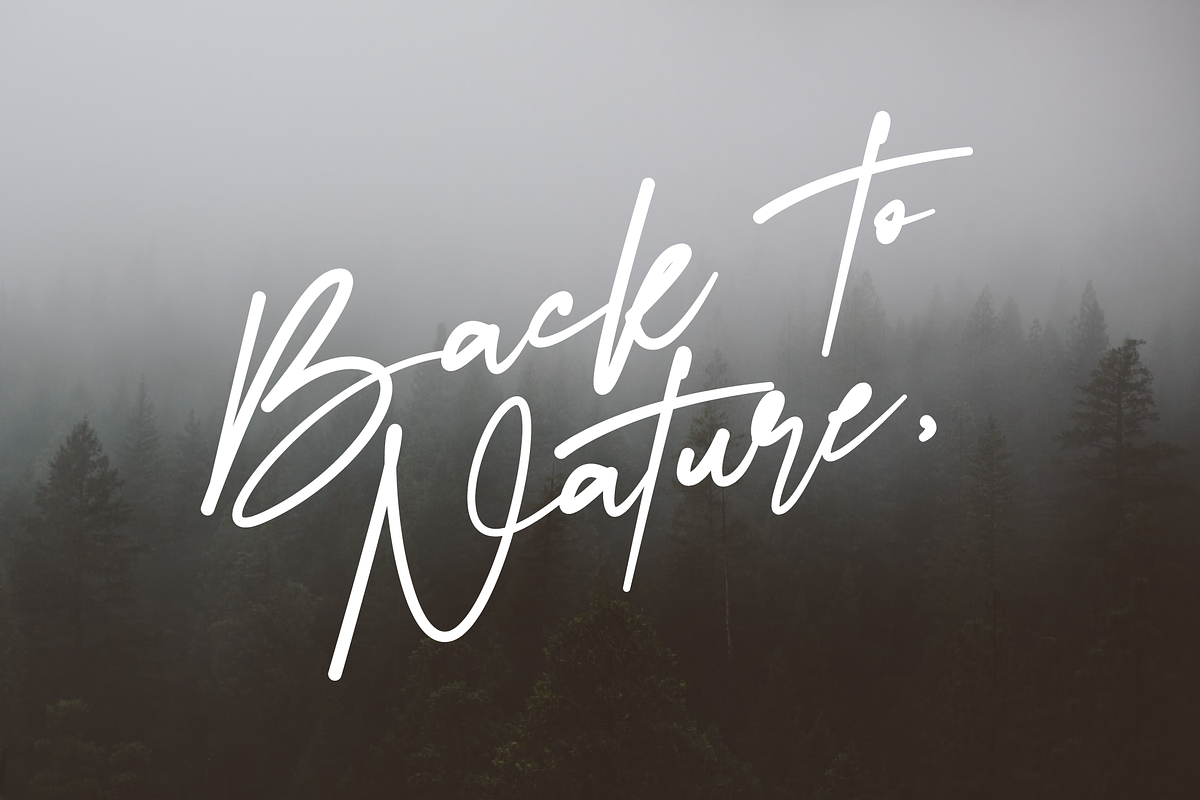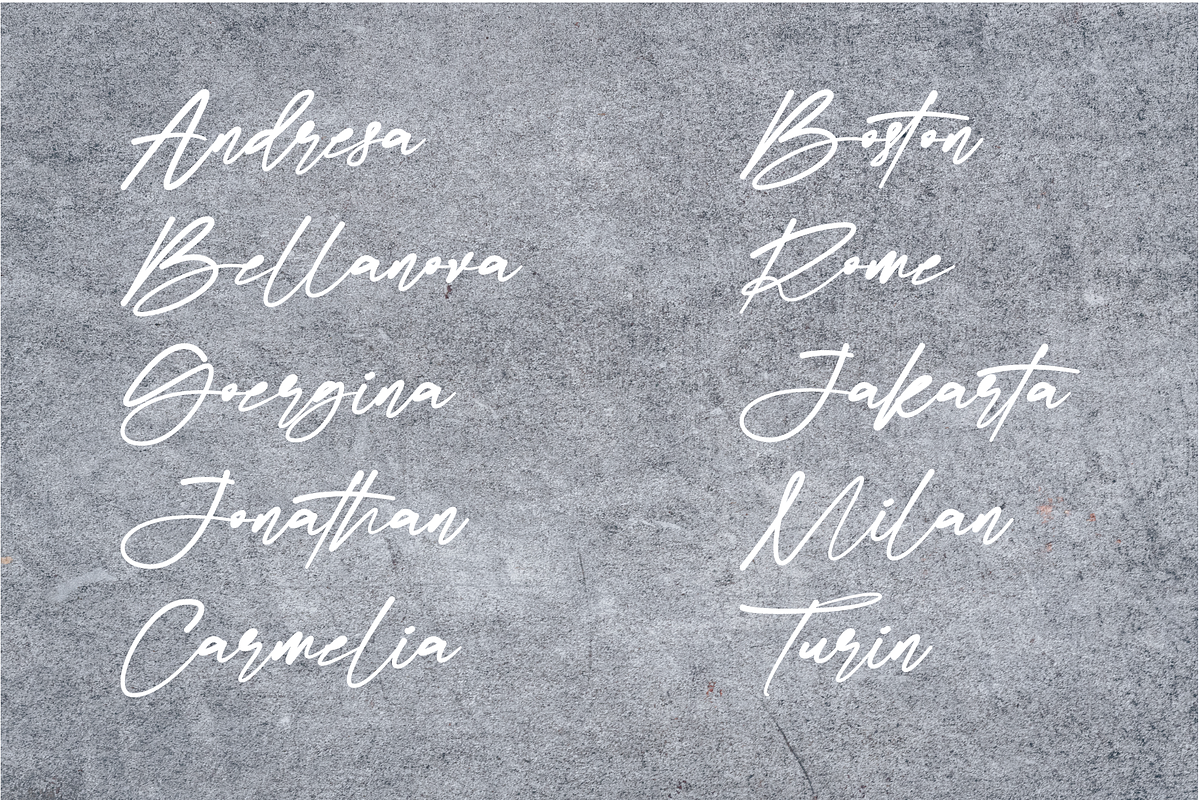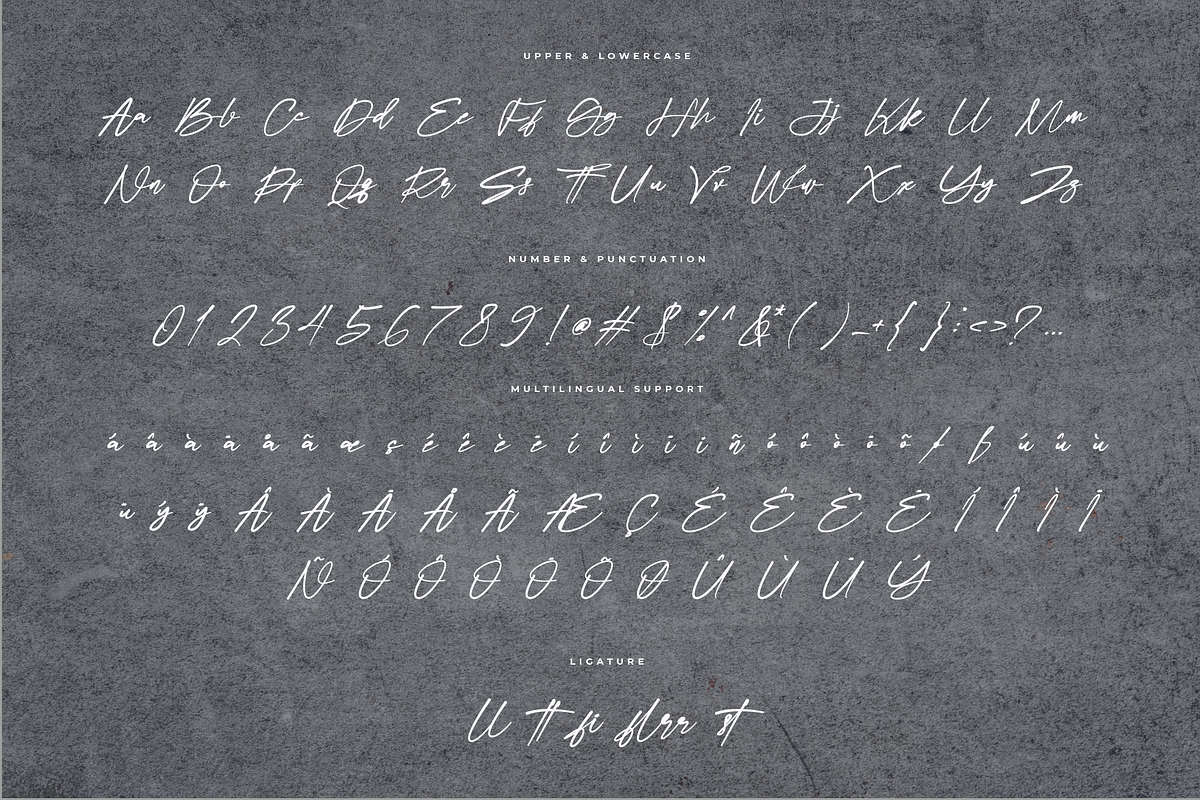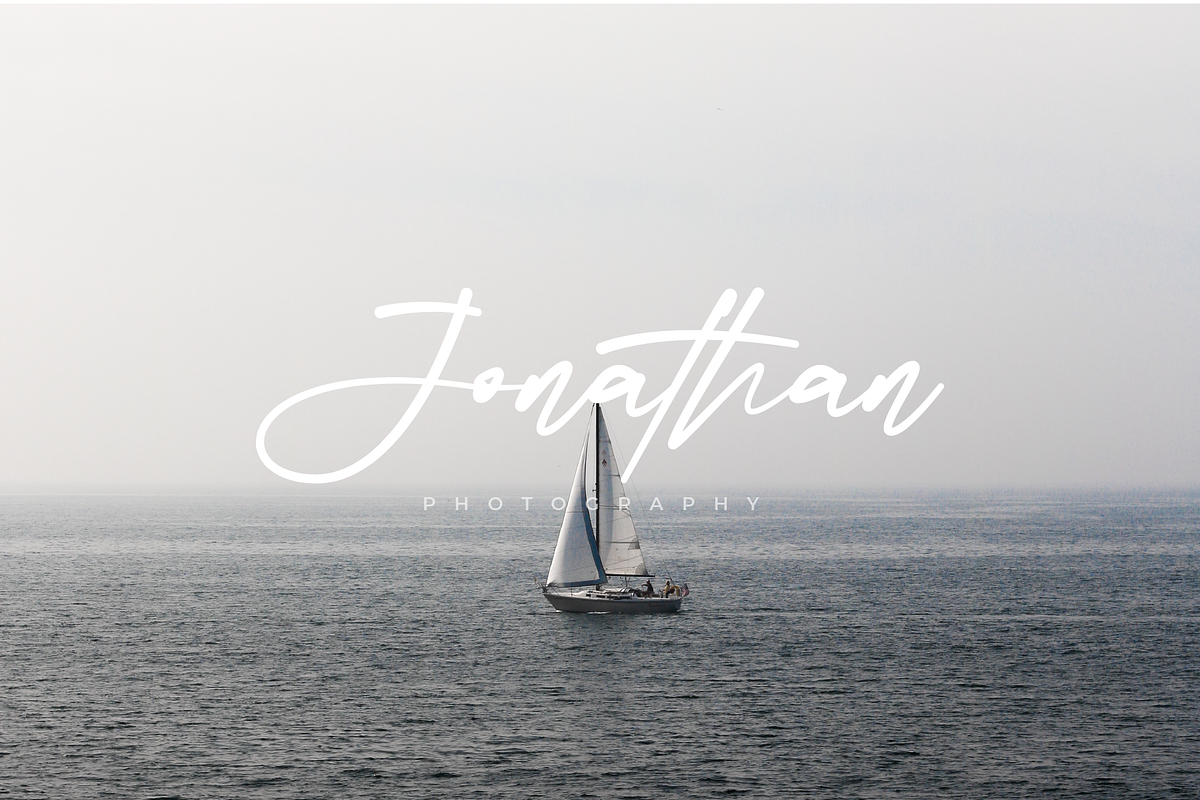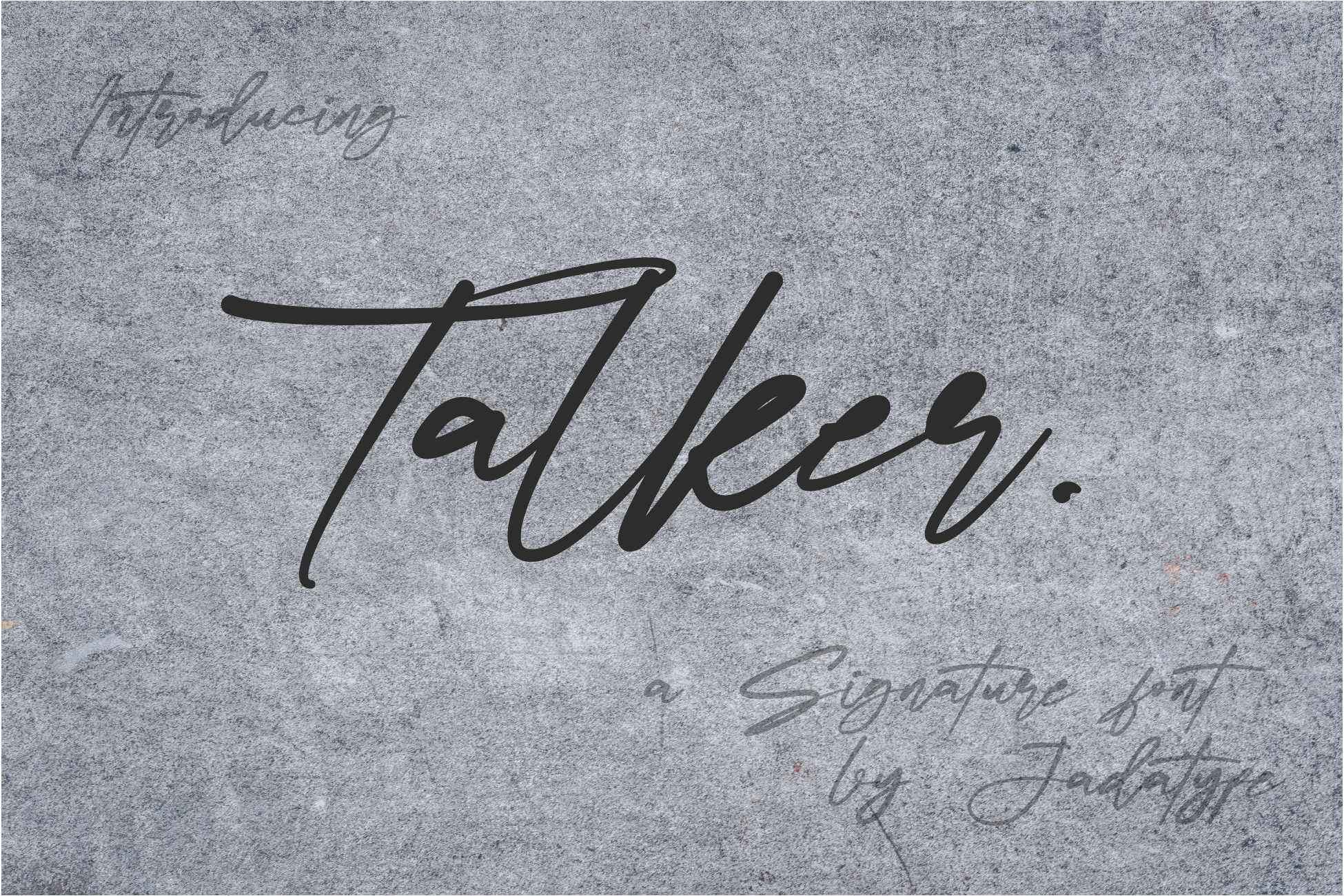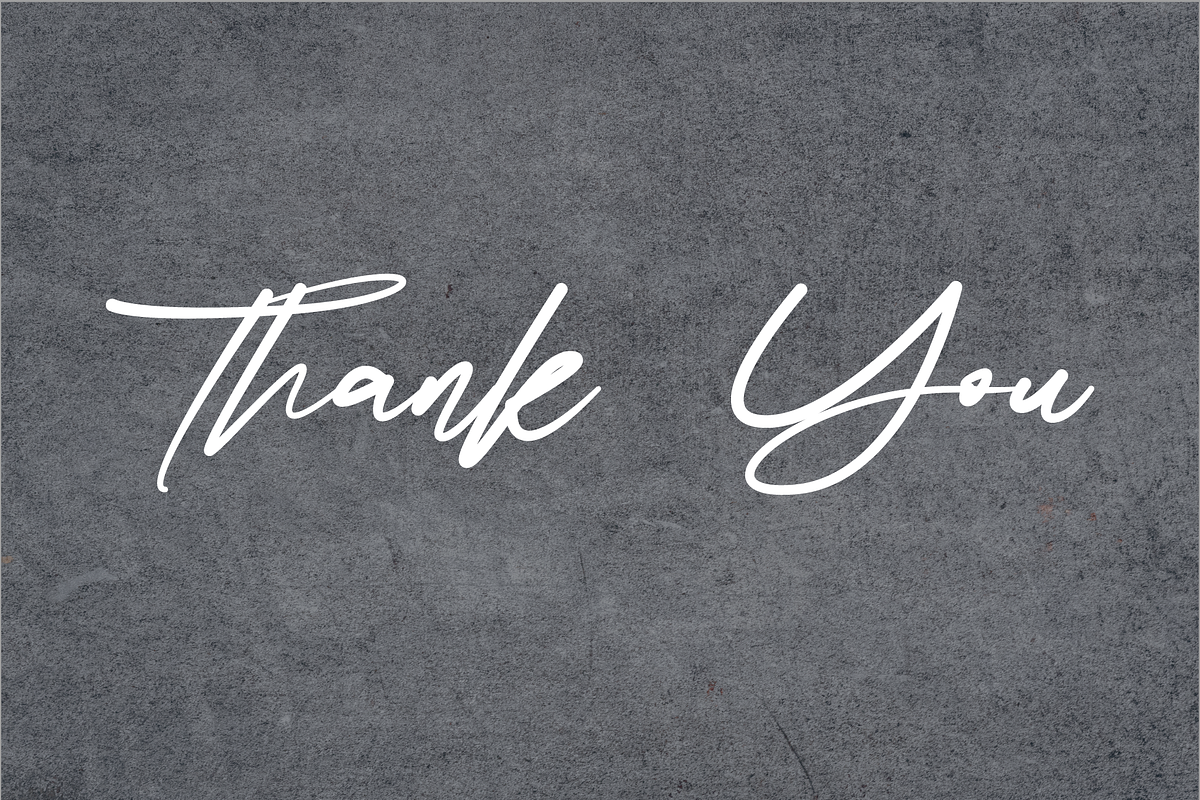
Talker Font
Talker is a script signature font with brushed lines. gives the impression of being energetic, playful, youth, and firm. suitable for use as your wordmark logo, branding needs, social media needs, merchandising needs, and others. contains standard English fonts and some that support multilingualism. can be installed in applications such as Adobe Family, Affinity, MS Word, or similar applications.